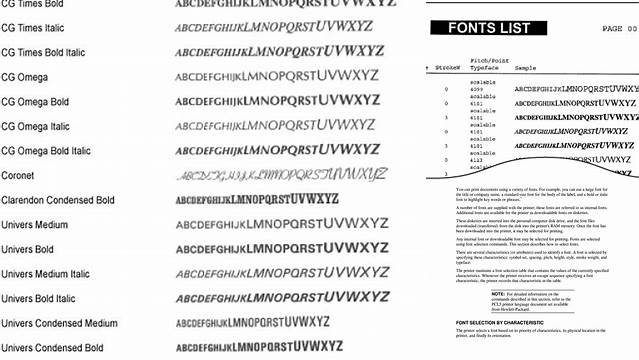
PCL Fonts: A Comprehensive Guide
Hey guys! Ever wondered about those seemingly mysterious characters and symbols popping up on your printed documents? Chances are, PCL fonts are playing a key role! This comprehensive guide will dive deep into the world of PCL fonts, exploring their history, types, applications, and everything in between. We're going to break down the technical jargon into easy-to-understand language, so even if you're not a tech whiz, you'll walk away with a solid understanding. So, buckle up and let's embark on this fontastic journey!
What are PCL Fonts?
Okay, let's start with the basics. What are PCL fonts anyway? PCL stands for Printer Command Language, and it's a page description language developed by Hewlett-Packard (HP). Think of it as a set of instructions that tell a printer exactly how to print a page, including which fonts to use. PCL fonts are the font styles supported by printers that use the PCL language. They are essentially digital typefaces that are stored on the printer itself or can be downloaded to the printer's memory. This allows for faster printing and better control over the final output. There are different versions of PCL, each with varying levels of font support and features, but the underlying principle remains the same: to provide a standardized way for computers to communicate with printers.
History of PCL Fonts
The history of PCL fonts is closely tied to the evolution of HP's printers. Back in the 1980s, HP introduced PCL as a way to control their laser printers. Early versions of PCL offered a limited set of built-in fonts. As technology advanced, PCL evolved to support more complex fonts and features, including scalable fonts and vector graphics. The development of PCL fonts has been a continuous process, with each new version of PCL aiming to improve print quality, speed, and flexibility. This journey reflects the broader evolution of printing technology, from simple character-based printing to sophisticated document imaging.
Types of PCL Fonts
PCL fonts come in various flavors, each with its own characteristics and use cases. You've got your resident fonts, which are the ones pre-installed in the printer's memory. Then there are soft fonts, which can be downloaded to the printer as needed. And let's not forget about scalable fonts, which can be resized without losing quality. Understanding these different types is key to optimizing your printing workflow. Resident fonts are convenient for frequently used typefaces, while soft fonts offer flexibility for specific projects. Scalable fonts ensure that your documents look sharp at any size. Each type plays a crucial role in the overall PCL font ecosystem.
PCL 5 Fonts
PCL 5 is a significant version in the PCL family, and its font capabilities are worth exploring. PCL 5 fonts include a range of built-in typefaces, as well as support for downloadable fonts. This version introduced significant improvements in font handling and printing performance. PCL 5 is known for its robust support for text and graphics, making it a popular choice for business documents and general printing needs. The variety of fonts available in PCL 5 allows for a wide range of stylistic choices, from formal reports to creative marketing materials. The enduring popularity of PCL 5 is a testament to its reliability and versatility.
PCL 6 Fonts
Moving on to PCL 6, this version brought even more advanced font features to the table. PCL 6 fonts are designed for speed and efficiency, utilizing a vector-based font technology that allows for faster rendering and improved print quality. PCL 6 is particularly adept at handling complex documents with graphics and images. The use of vector fonts means that they can be scaled without losing sharpness, which is crucial for professional printing. PCL 6 also introduced features like font substitution, where the printer can use a similar font if the requested font is not available. This helps to maintain the overall look and feel of the document, even if there are font compatibility issues.
Scalable PCL Fonts
Speaking of scaling, scalable PCL fonts are a game-changer. Unlike bitmap fonts, which are made up of fixed pixels, scalable fonts are based on mathematical outlines. This means they can be resized to any point size without becoming pixelated or blurry. Scalable fonts are essential for producing professional-looking documents that need to be printed at different sizes. Whether you're printing a small label or a large poster, scalable fonts ensure consistent quality. Common examples of scalable fonts include TrueType and PostScript fonts, which are widely supported by PCL printers.
Resident PCL Fonts
Resident PCL fonts, as we touched on earlier, are the fonts that are built directly into the printer's hardware. These fonts are always available and don't need to be downloaded. Resident fonts are great for everyday printing tasks and ensure fast printing speeds. While the selection of resident fonts might be limited compared to downloadable fonts, they provide a reliable baseline for common text styles. Manufacturers often include a standard set of resident fonts, such as Courier, Times New Roman, and Arial, to cover a wide range of printing needs.
Downloadable PCL Fonts
For more specialized printing needs, downloadable PCL fonts come to the rescue. These fonts can be uploaded to the printer's memory, expanding the range of available typefaces. Downloadable fonts offer flexibility and customization, allowing you to use specific fonts for branding, marketing materials, or unique document designs. You can find a vast library of downloadable fonts online, both free and commercial. When choosing downloadable fonts, it's important to ensure they are compatible with your PCL printer and that you have the necessary licenses for their use.
Using PCL Fonts in Documents
So, how do you actually use PCL fonts in your documents? Most word processors and desktop publishing software allow you to select fonts from a dropdown menu. When you print the document, the software sends instructions to the printer, specifying which fonts to use. The printer then uses either its resident fonts or downloaded fonts to render the text. Understanding how fonts are embedded in documents is crucial for ensuring consistent printing results. Some applications allow you to embed fonts directly into the document file, which ensures that the document will look the same even if opened on a computer that doesn't have the same fonts installed.
Embedding PCL Fonts
Embedding PCL fonts is a technique that ensures your document's fonts travel with the file. This is especially important when sharing documents with others or sending them to a professional printer. When you embed fonts, the font data is included within the document file itself. This eliminates the risk of font substitution, where the recipient's computer uses a different font because the original font is not installed. Embedding fonts can increase the file size, but it guarantees that your document will look as intended, regardless of the viewing environment. Not all fonts can be embedded due to licensing restrictions, so it's essential to check the font's permissions before embedding.
PCL Font Compatibility
PCL font compatibility can sometimes be a tricky issue. Not all printers support the same set of fonts, and different versions of PCL have varying font capabilities. To ensure compatibility, it's essential to choose fonts that are widely supported or to embed fonts in your documents. Font substitution, as mentioned earlier, can help mitigate compatibility issues, but it's not always a perfect solution. Testing your documents on different printers is a good way to identify potential compatibility problems. Also, staying updated with printer driver updates can improve font compatibility and overall printing performance.
Troubleshooting PCL Font Issues
Encountering problems with PCL fonts? Don't worry, it happens to the best of us! Common issues include fonts not printing correctly, font substitution, or garbled text. The first step in troubleshooting is to check your printer settings and ensure the correct PCL version is selected. If a specific font is causing problems, try using a different font or embedding the font in the document. Updating your printer drivers can also resolve many font-related issues. In some cases, the problem might be with the font file itself, so try downloading a fresh copy from a reputable source.
Managing PCL Fonts
Effective PCL font management is key to maintaining a smooth printing workflow. This includes organizing your font library, ensuring font licenses are valid, and keeping your font collection up-to-date. Font management software can help you organize and activate fonts as needed. Regularly reviewing your font collection and removing unused fonts can also improve system performance. If you're working in a collaborative environment, establishing font standards can prevent compatibility issues and ensure consistent branding across documents.
Converting Fonts to PCL
Sometimes, you might need to convert fonts to PCL format. This is often necessary when working with older printers or specific software applications that require PCL fonts. Font conversion tools can help you convert fonts from other formats, such as TrueType or PostScript, to PCL. However, it's important to ensure that you have the legal rights to convert the fonts, as some font licenses restrict conversion. When converting fonts, pay attention to the output settings to maintain font quality and readability.
PCL Fonts vs. PostScript Fonts
PCL fonts and PostScript fonts are the two main types of printer fonts. While PCL is primarily associated with HP printers, PostScript is a page description language developed by Adobe. The key difference lies in how they render fonts and graphics. PCL is generally faster for simple text documents, while PostScript excels at handling complex graphics and high-resolution images. PostScript is also known for its superior color accuracy. The choice between PCL and PostScript often depends on the specific printing needs and the capabilities of the printer. Many modern printers support both languages, providing flexibility for different types of documents.
Advantages of Using PCL Fonts
Why choose PCL fonts? Well, they offer several advantages. PCL is known for its speed and efficiency, making it a great choice for high-volume printing. The wide range of fonts available in PCL, both resident and downloadable, provides flexibility for different design needs. PCL also has strong support for text and graphics, making it suitable for a variety of document types. Another advantage is its broad compatibility with printers, especially HP printers. The cost-effectiveness of PCL, combined with its performance and versatility, makes it a popular choice for both home and office printing.
Disadvantages of Using PCL Fonts
Of course, PCL fonts aren't without their drawbacks. One potential disadvantage is compatibility issues, as not all PCL fonts are supported by every printer. Font substitution can sometimes lead to unexpected results. PCL may also be less suitable for complex graphics-intensive documents compared to PostScript. The quality of PCL fonts can vary depending on the printer and the specific font design. Despite these limitations, PCL remains a powerful and widely used printing language, particularly for standard document printing.
Future of PCL Fonts
What does the future hold for PCL fonts? As printing technology continues to evolve, PCL is likely to adapt and incorporate new features. We can expect to see further improvements in font rendering, color accuracy, and handling of complex graphics. Cloud printing and mobile printing are also likely to influence the future of PCL, with a focus on seamless integration across different devices and platforms. The ongoing development of PCL ensures its continued relevance in the printing landscape.
Best Practices for PCL Font Usage
To get the most out of PCL fonts, it's helpful to follow some best practices. Choose fonts that are appropriate for the document's purpose and audience. Embed fonts when sharing documents to ensure consistent rendering. Regularly update your printer drivers to improve compatibility and performance. Manage your font library effectively to avoid clutter and compatibility issues. Testing your documents on different printers can help identify potential problems before printing a large batch. By following these guidelines, you can optimize your printing workflow and achieve professional-looking results.
Choosing the Right PCL Fonts for Your Needs
Selecting the right PCL fonts can make a big difference in the look and feel of your documents. Consider the purpose of the document, the target audience, and the overall design aesthetic. For formal documents, choose classic and professional fonts like Times New Roman or Arial. For creative projects, you might opt for more decorative fonts. Ensure that the fonts you choose are legible and easy to read. Also, consider the scalability of the fonts, especially if you need to print documents at different sizes. Experiment with different font combinations to find what works best for your specific needs.
PCL Fonts and Printing Speed
PCL fonts can significantly impact printing speed. Resident fonts generally print faster than downloadable fonts because they are already stored in the printer's memory. Scalable fonts also contribute to faster printing, as they can be rendered quickly by the printer. Using the latest PCL version can also improve printing speed due to optimized font handling and rendering algorithms. If you're printing large documents, minimizing the number of different fonts and styles can also help speed up the printing process. Regular printer maintenance, such as cleaning the print heads, can also improve overall printing performance.
PCL Fonts and Print Quality
Print quality is another crucial aspect of PCL fonts. Scalable fonts are essential for achieving sharp and clear printouts, especially at larger sizes. The resolution of the printer also plays a key role in print quality. Higher resolution printers can produce more detailed and crisp images and text. Using high-quality paper can also enhance the appearance of your printed documents. If you're printing graphics-intensive documents, consider using PostScript fonts, which are known for their superior image rendering capabilities. Regular printer calibration can also help maintain optimal print quality.
PCL Fonts and File Size
PCL fonts can influence the file size of your documents. Embedding fonts increases file size because the font data is included in the document file. Using a large number of different fonts can also lead to larger file sizes. If file size is a concern, consider using a limited set of fonts and avoiding embedding fonts unless necessary. Compressing the document file can also reduce its size. When creating PDFs, optimizing the font settings can help minimize file size without sacrificing print quality. Balancing file size and print quality is key to efficient document management.
Common PCL Font Types
Let's take a closer look at some common PCL font types. Courier is a monospaced font often used for technical documents and coding. Times New Roman is a classic serif font suitable for formal writing. Arial is a widely used sans-serif font that provides a clean and modern look. Helvetica is another popular sans-serif font known for its readability. These fonts are often included as resident fonts in PCL printers. Exploring different font types can help you find the perfect typeface for your specific needs.
PCL Font Licensing
PCL font licensing is an important consideration when using downloadable fonts. Most fonts are protected by copyright, and you need a license to use them legally. Font licenses specify how the font can be used, such as for personal or commercial purposes. Some licenses restrict embedding fonts in documents or using them in certain types of projects. It's essential to read and understand the font license before using a font. Many font foundries offer different licensing options to suit various needs. Using fonts without a proper license can lead to legal issues, so it's always best to ensure you have the necessary permissions.
PCL Fonts in Different Operating Systems
PCL fonts are used across different operating systems, but the way they are handled can vary. Windows, macOS, and Linux all support PCL printing, but the font management tools and settings might differ. In Windows, fonts are typically managed through the Control Panel. macOS uses Font Book for font management. Linux systems often rely on fontconfig for font configuration. Understanding how your operating system handles fonts is crucial for troubleshooting compatibility issues. Ensuring that your printer drivers are up-to-date can also improve font compatibility across different operating systems.
PCL Font Substitution
We've mentioned PCL font substitution a few times, but let's delve a bit deeper. Font substitution occurs when the printer or operating system replaces a requested font with a different font. This can happen if the requested font is not available or if there are compatibility issues. Font substitution can affect the appearance of your document, as the substitute font might have a different style or spacing. To minimize font substitution, embed fonts in your documents or choose widely supported fonts. Checking the font substitution settings in your printer driver can also help control how fonts are replaced.
PCL Fonts and Printer Drivers
PCL fonts and printer drivers are closely linked. The printer driver is the software that allows your computer to communicate with the printer. It's responsible for translating the printing instructions, including font information, into a format that the printer can understand. Keeping your printer drivers up-to-date is crucial for ensuring optimal font compatibility and printing performance. Outdated drivers can cause font-related issues, such as incorrect rendering or font substitution. Printer manufacturers regularly release driver updates to address bugs and improve functionality. Downloading and installing the latest drivers from the manufacturer's website is a best practice for PCL font management.
PCL Fonts and Network Printing
PCL fonts in a network printing environment can present unique challenges. When multiple users share a printer, font compatibility becomes even more critical. Using standard fonts and embedding fonts in documents can help ensure consistent printing results across the network. Network administrators can also manage fonts centrally, ensuring that all users have access to the same set of fonts. Printer queues and print servers can also influence font handling. Troubleshooting font issues in a network printing environment often involves checking the printer server settings and network configurations.
PCL Fonts and Wireless Printing
Wireless printing has become increasingly popular, and PCL fonts play a role in this technology. Wireless printers rely on network connections to receive print jobs, and font information needs to be transmitted along with the document data. Ensuring a stable wireless connection is crucial for reliable font rendering. Some wireless printers offer features like Wi-Fi Direct, which allows direct printing from devices without a network. Optimizing your wireless network settings can improve printing speed and prevent font-related issues.
Advanced PCL Font Techniques
For advanced users, there are several advanced PCL font techniques to explore. These include using custom font sets, creating macros for font control, and programming PCL commands directly. Custom font sets allow you to define specific font configurations for different types of documents. PCL macros can automate font selection and formatting tasks. Direct PCL programming provides the highest level of control over font rendering and printing. These techniques require a deeper understanding of PCL and printing technology, but they can significantly enhance your printing capabilities.
PCL Font Resources and Tools
Finally, let's talk about PCL font resources and tools. There are many online resources where you can find PCL fonts, printer drivers, and troubleshooting information. Font foundries offer a wide variety of downloadable PCL fonts, both free and commercial. Printer manufacturers' websites provide driver downloads and support documentation. Online forums and communities can be valuable sources of help and advice. Font management software can help you organize and manage your font library. Utilizing these resources and tools can greatly simplify your PCL font workflow. So there you have it, guys – a comprehensive guide to the fascinating world of PCL fonts! Hope you found it helpful!